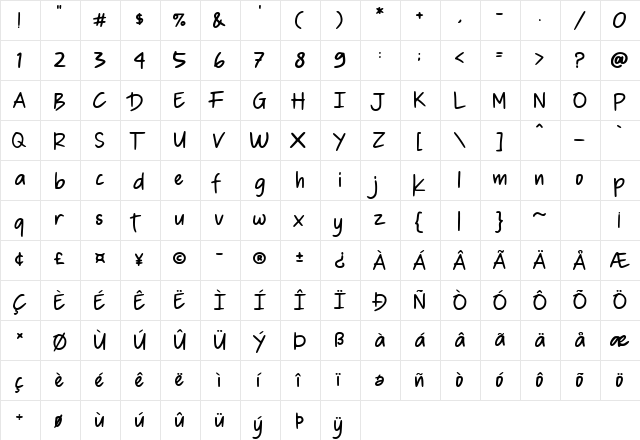
Mister Child Regular Font Preview
Mister Child Regular
Mister Child Regular Font Details
| Designer | Green Adventure Studio. 2020 |
Design Context for Mister Child Typeface
Mister Child has an approachable, lighthearted character — its loose, expressive forms are well-suited to children's content, casual branding, and fun-first design.
Well-suited to food and beverage brands with personality, educational materials, and fun-forward identities.
Font Pairing: Pairs well with a rounded or humanist sans for body copy, maintaining the friendly tone without relying on Mister Child to carry extended reading.
Pro Tip: Use Mister Child at larger display sizes where its expressive character can land. Pair with a clean, simple sans for body copy to maintain readability.